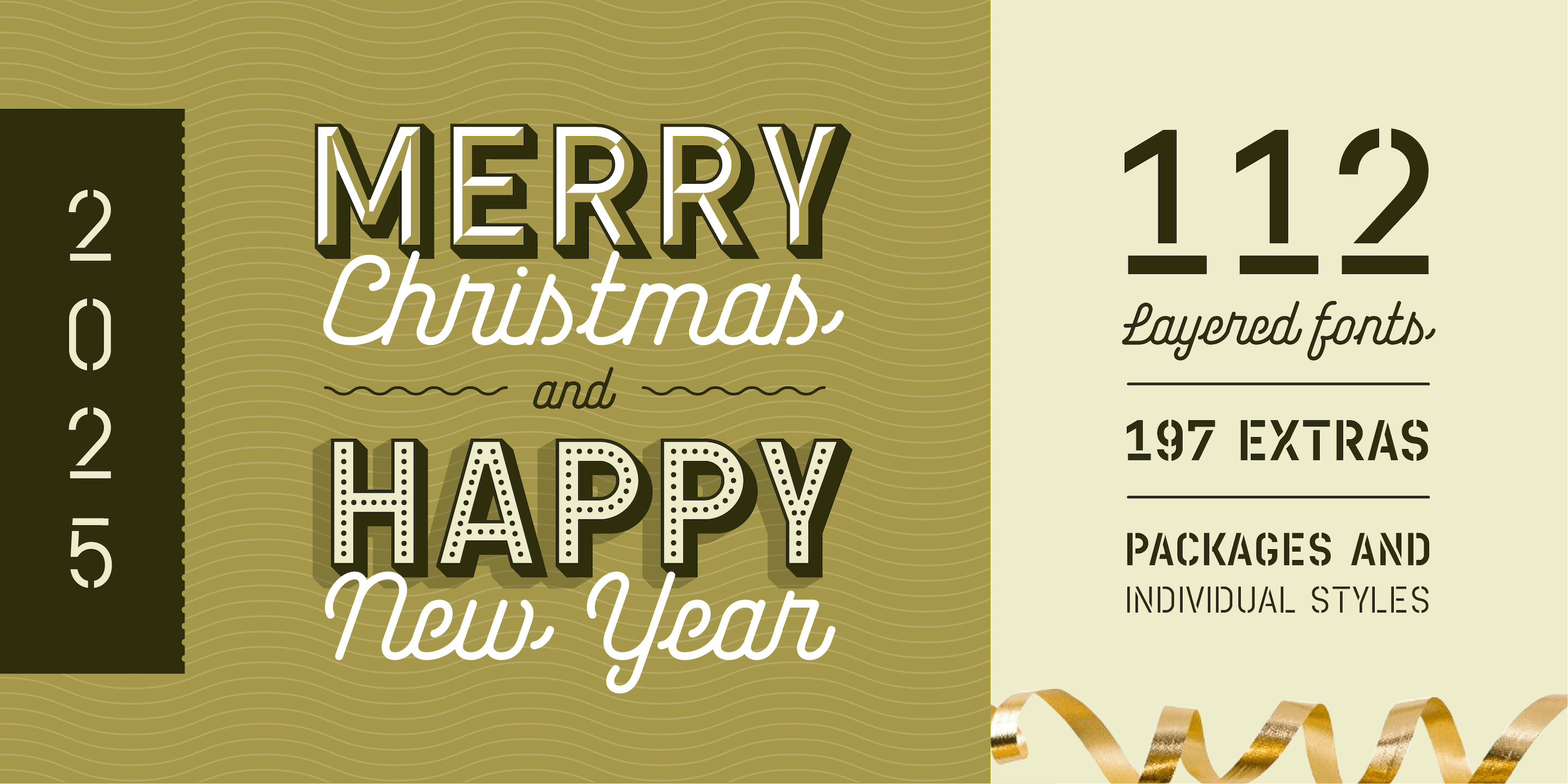
Chamelton Font is perfect for adaptive brand identities, versatile design agencies, multi-platform app interfaces, flexible marketing campaigns, dynamic website designs, transformative business presentations, creative studio branding, innovative product launches, adaptable corporate communications, and evolutionary brand materials that require exceptional versatility and seamless adaptation across diverse applications.
This font is exciting because it embodies the remarkable adaptability and transformative nature of a chameleon with letterforms that seamlessly adjust to different contexts while maintaining their distinctive character and visual integrity. Chamelton Font features intelligent design flexibility and contextual responsiveness that allows it to blend perfectly with various design styles while retaining its unique personality and professional excellence.
Chamelton Font family includes Regular, Bold, Light, Medium, Adaptive, Flexible, Dynamic, and Contextual versions, plus transformative symbols, adaptive ornaments, contextual elements, and responsive design icons that enhance the versatile aesthetic and provide comprehensive solutions for multi-platform and adaptive design applications.
For adaptive and multi-platform design projects, Chamelton Font Free Download delivers unmatched versatility and contextual intelligence. The font's adaptive letterforms and flexible character make it perfect for design agencies, tech companies, and innovative brands seeking to communicate adaptability, versatility, and creative problem-solving. Its transformative design appeals to audiences who value flexibility and intelligent solutions. The character set includes contextual alternates and adaptive variations that automatically adjust to different design environments. Professional designers appreciate its ability to maintain consistency while adapting to diverse contexts, making it work seamlessly across digital platforms, print materials, and brand touchpoints, making it essential for brands that want to project adaptability, innovation, and the intelligent flexibility required to thrive in today's ever-changing marketplace.